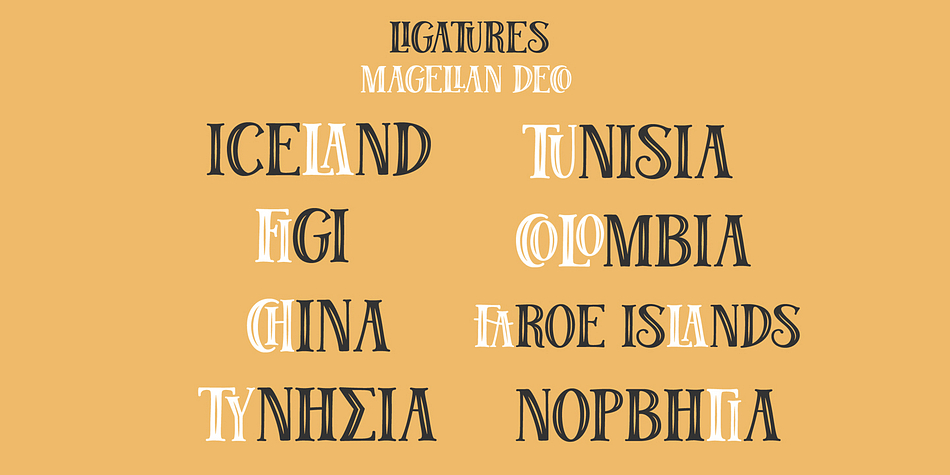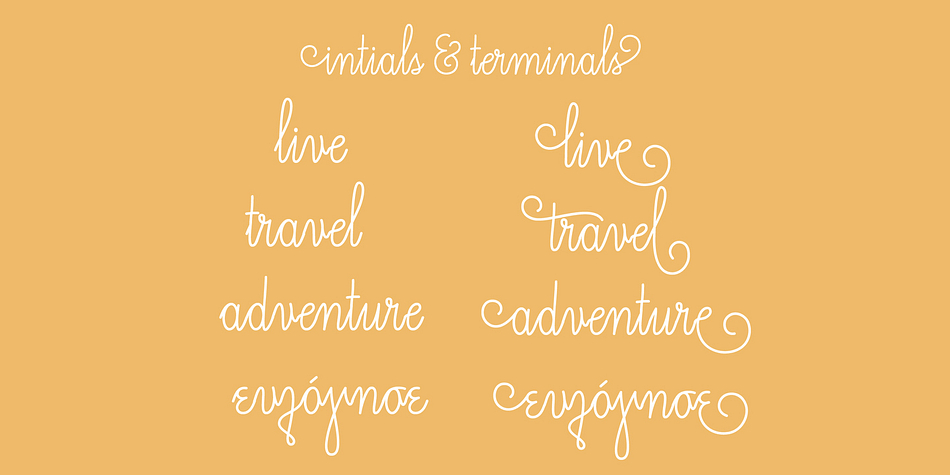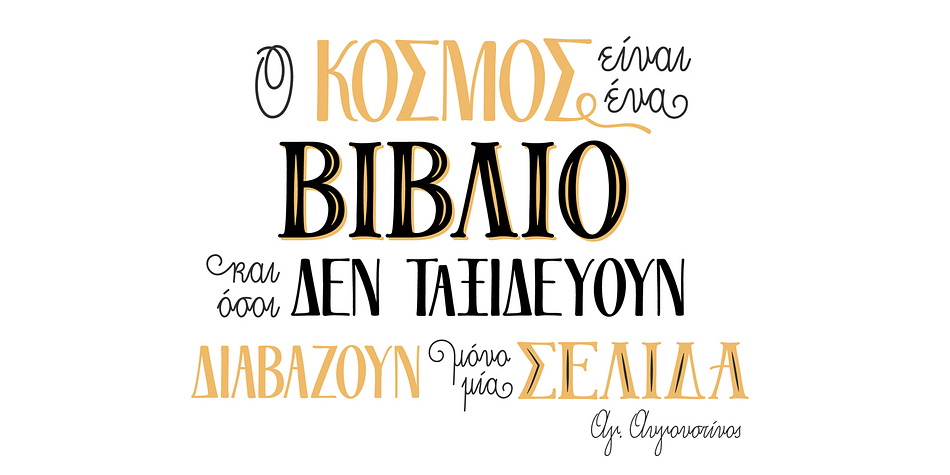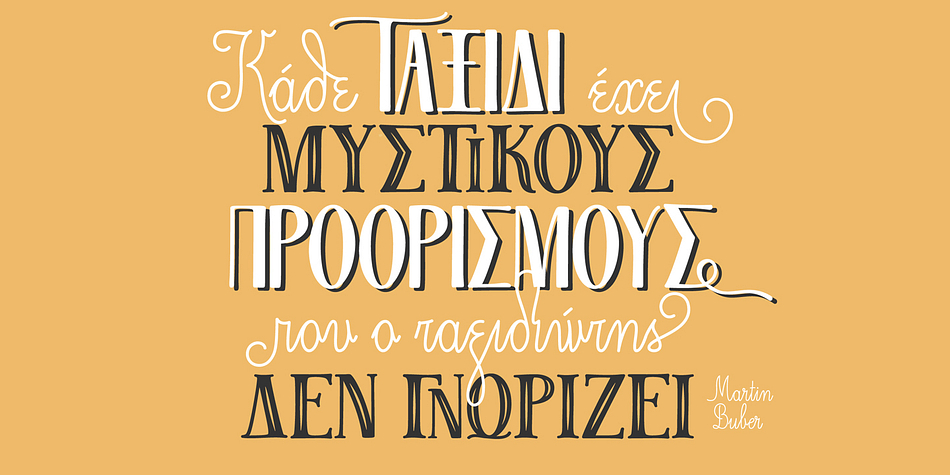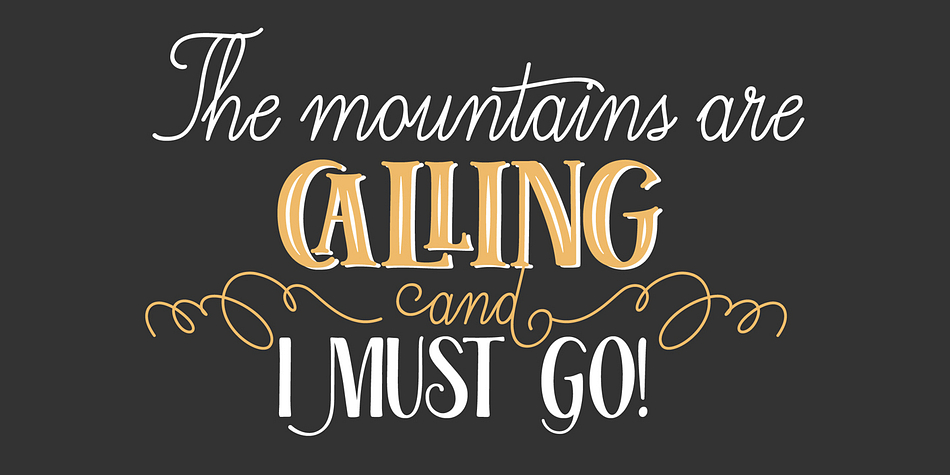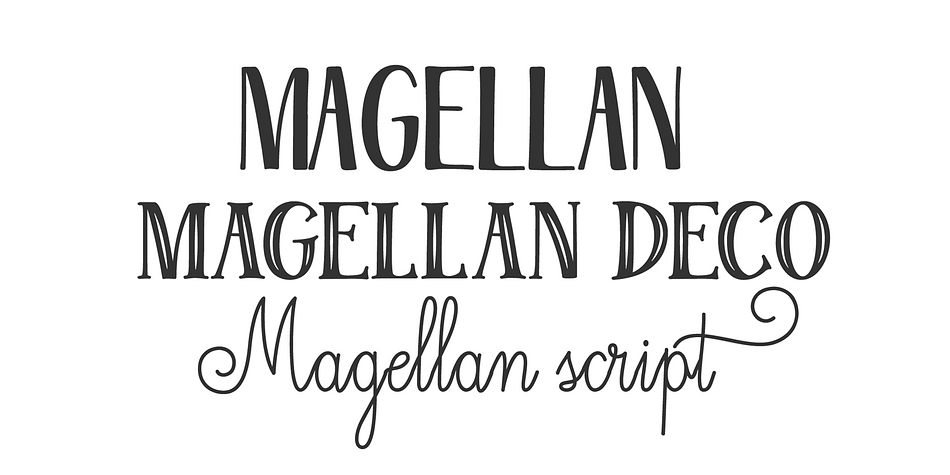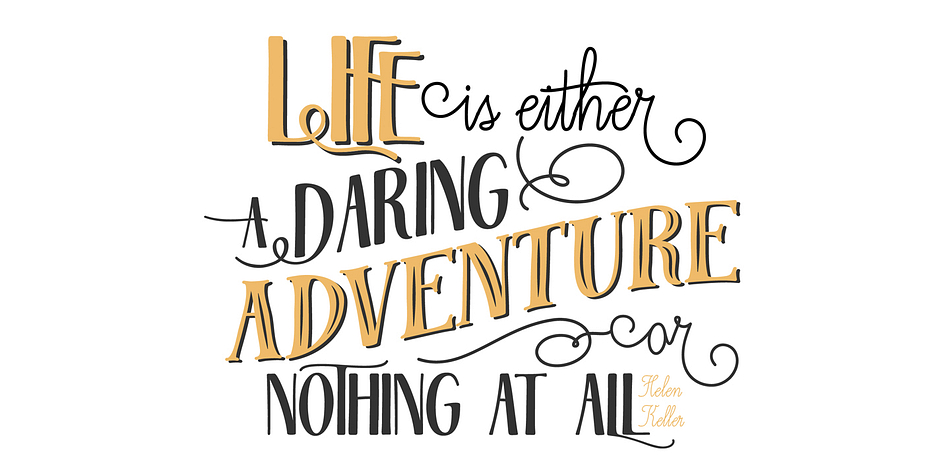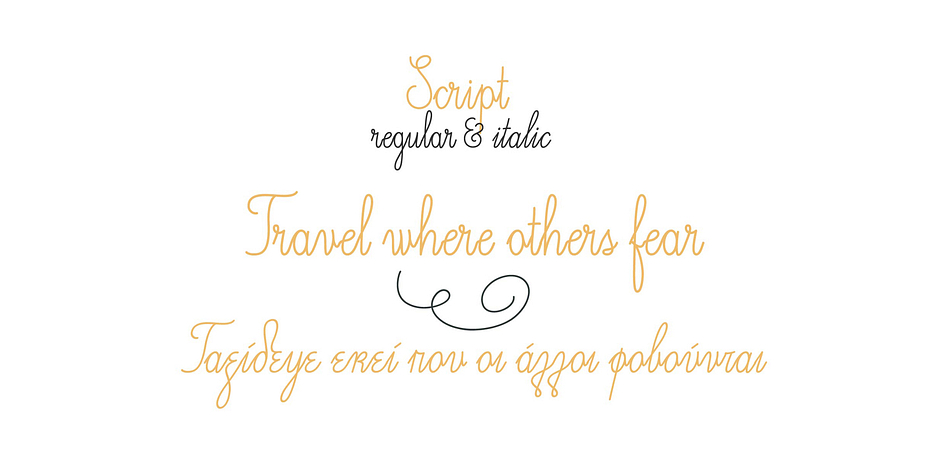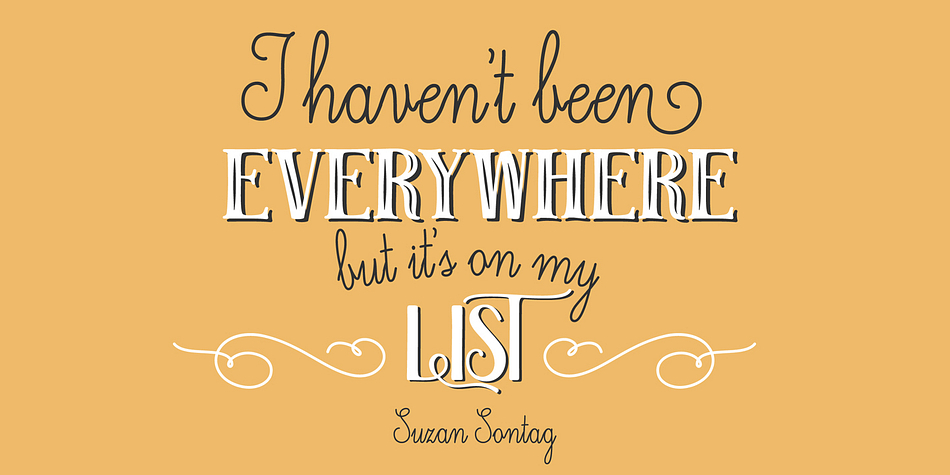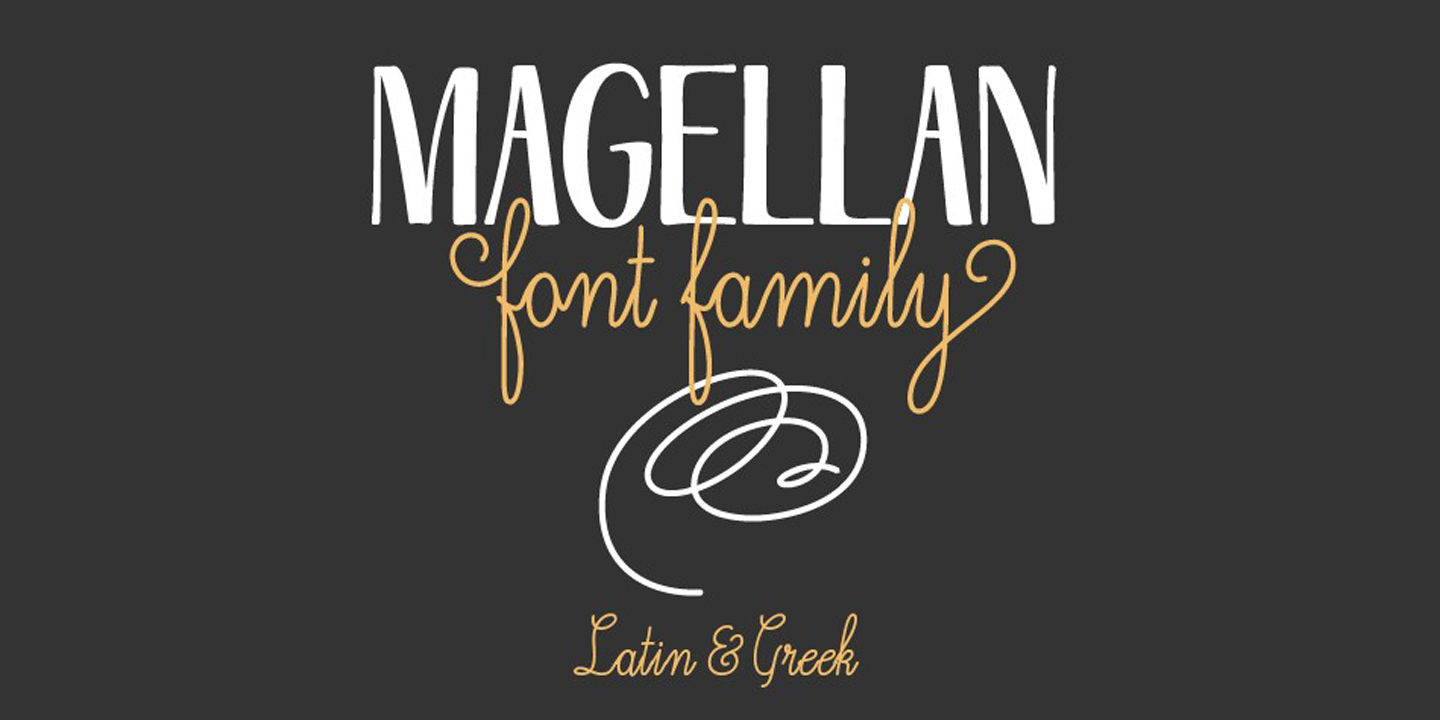
Magellan is a multiple classification font family. This typeface has five styles and was published by DimitriAna.
The Magellan font family is a hand drawn collection of 4 fonts, that were inspired by the art of hand lettering. In Magellan fonts you will find a variety of Open type features that offer you endless combinations and create the warm and playful feel of hand lettering.
Magellan is an all caps sans serif font, with standard and discretionary ligatures, stylistic and titling alternates.
Magellan Deco is a decorative and all caps serif font that contains standard and discretionary ligatures.
Magellan Script is a monoline calligraphic font that comes up in two styles, regular and italic. It contains stylistic alternates, standard ligatures and 2 stylistic classes with initial and terminal letters.
Magellan Ornates is a set of 22 decorative flourishes.
The font family is perfect for vintage designs for apparel, logos, labels, lettering prints and book covers.
All fonts support Central, Eastern, Western European and Greek languages and they are fully unicode-mapped (PUA encoded).